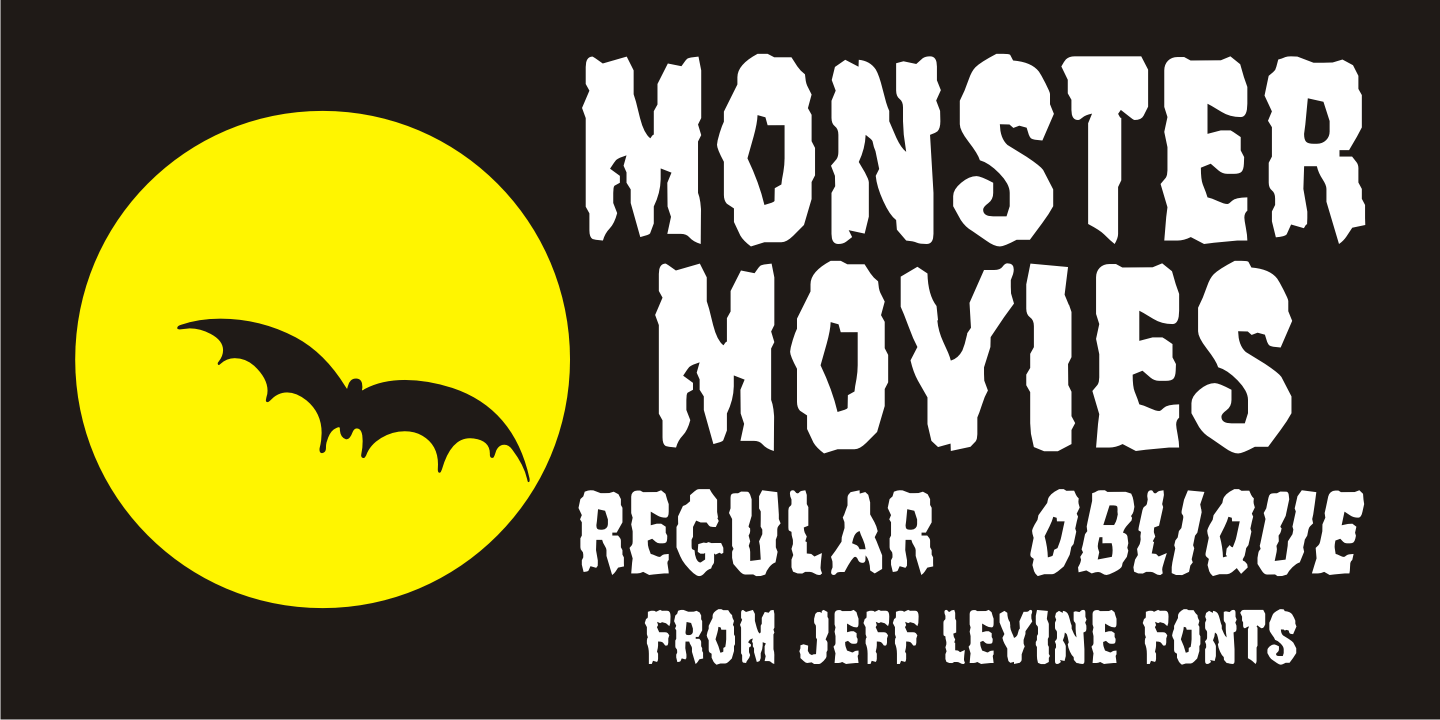
Monster Movies
A 1967 ad for Aurora 'Monster Scenes Custom Builder Kits” featured the drippy, gooey hand lettering long associated with science fiction and horror movies.
The letters in the ad were auto-scanned and additional characters were completed with the end result being a horror-themed font with sharper angles and lines instead of drips.
This is now available as Monster Movies JNL, which is available in both regular and oblique versions.